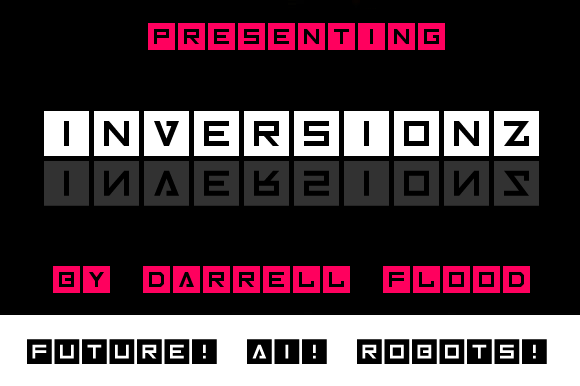
Journey to the cutting-edge realm of digital aesthetics with Inversionz Font - the vanguard of typography, crafted to propel your tech startup into the stratosphere of innovation. This futuristic display font, designed by the visionary Dadiomouse, will transform your brand into a beacon of modernity and technological prowess.
Inversionz Font's slick, stylish tile-set style is an avant-garde canvas for your digital creations. Captivating and enigmatic, this font exudes an aura of mystery and intrigue, evoking the allure of uncharted territories and limitless possibilities.
Unleash your creativity and immerse yourself in a symphony of visual artistry with Inversionz Font. Its sharp angles and clean lines evoke a sense of precision and sophistication, while its subtle curves hint at the boundless potential of your tech startup.
Whether crafting captivating logos, designing sleek websites or developing cutting-edge marketing materials, Inversionz Font will elevate your brand's presence and establish it as a thought leader in the tech industry.
Embrace the boldness, defy conventions and redefine the boundaries of tech startups. Inversionz Font awaits you, poised to ignite your imagination and propel your brand into the forefront of innovation.